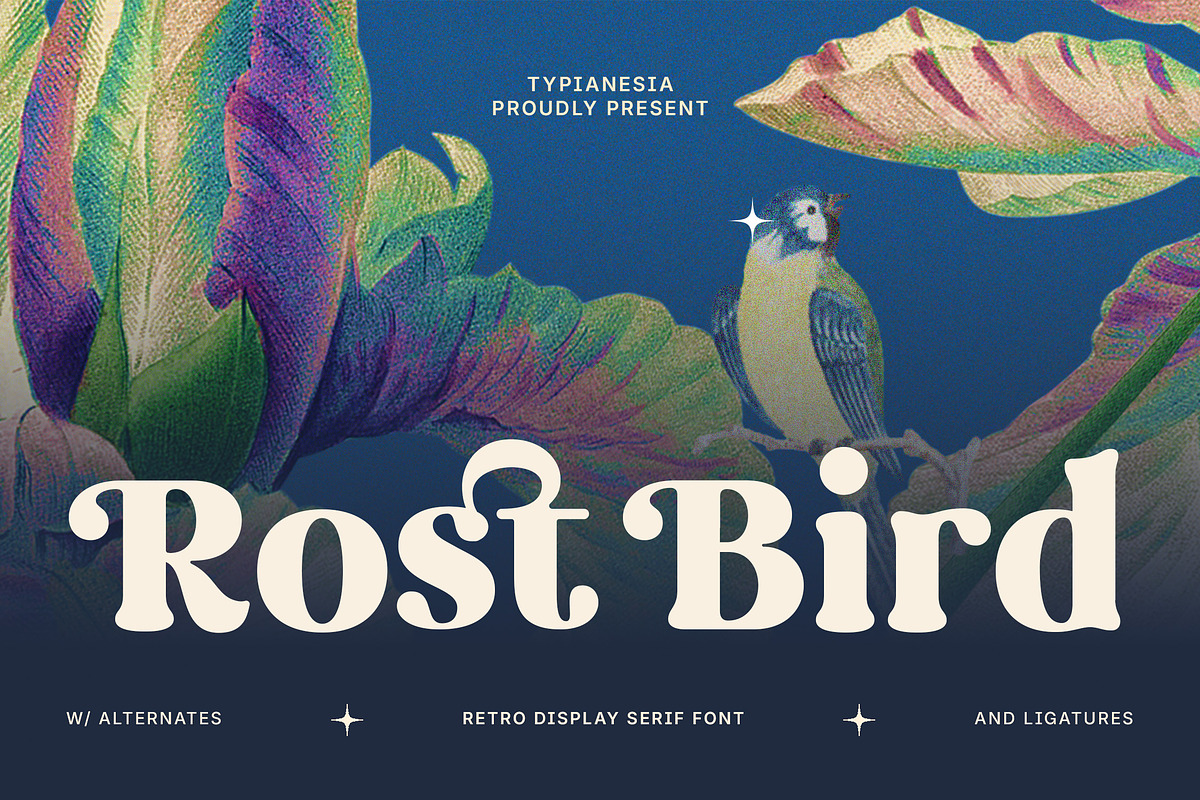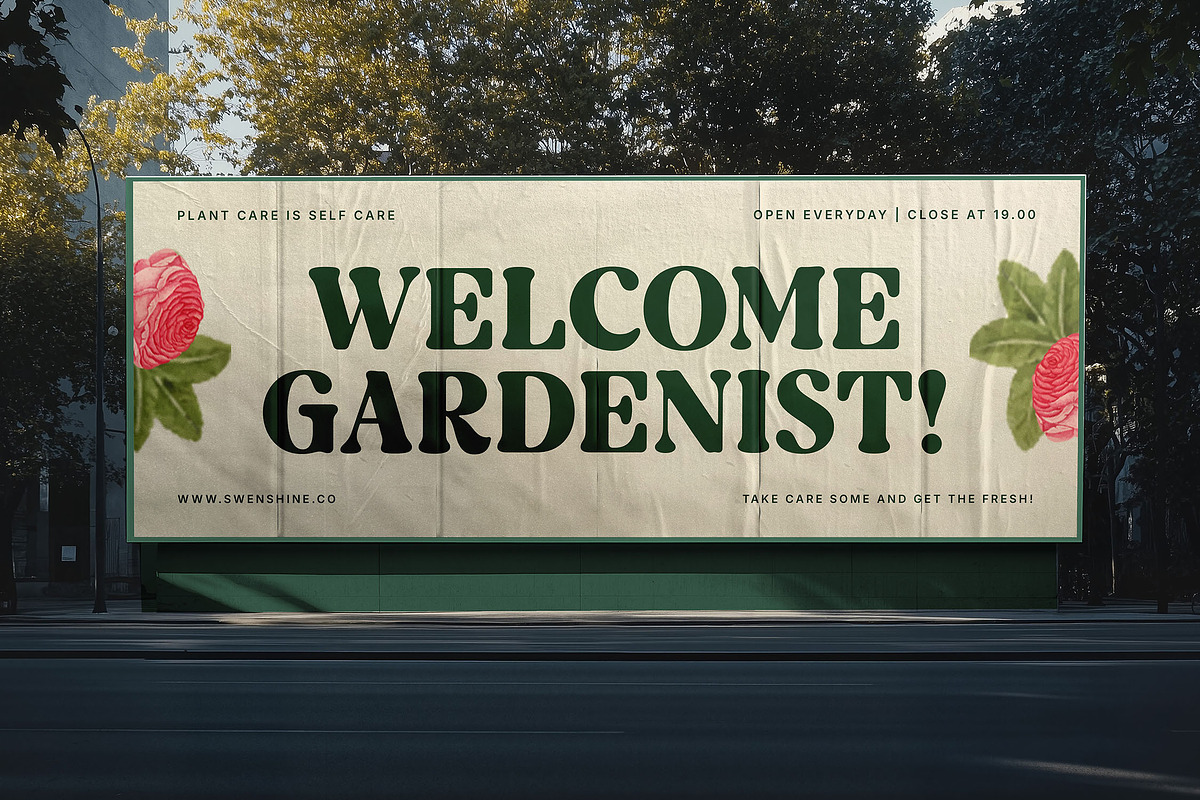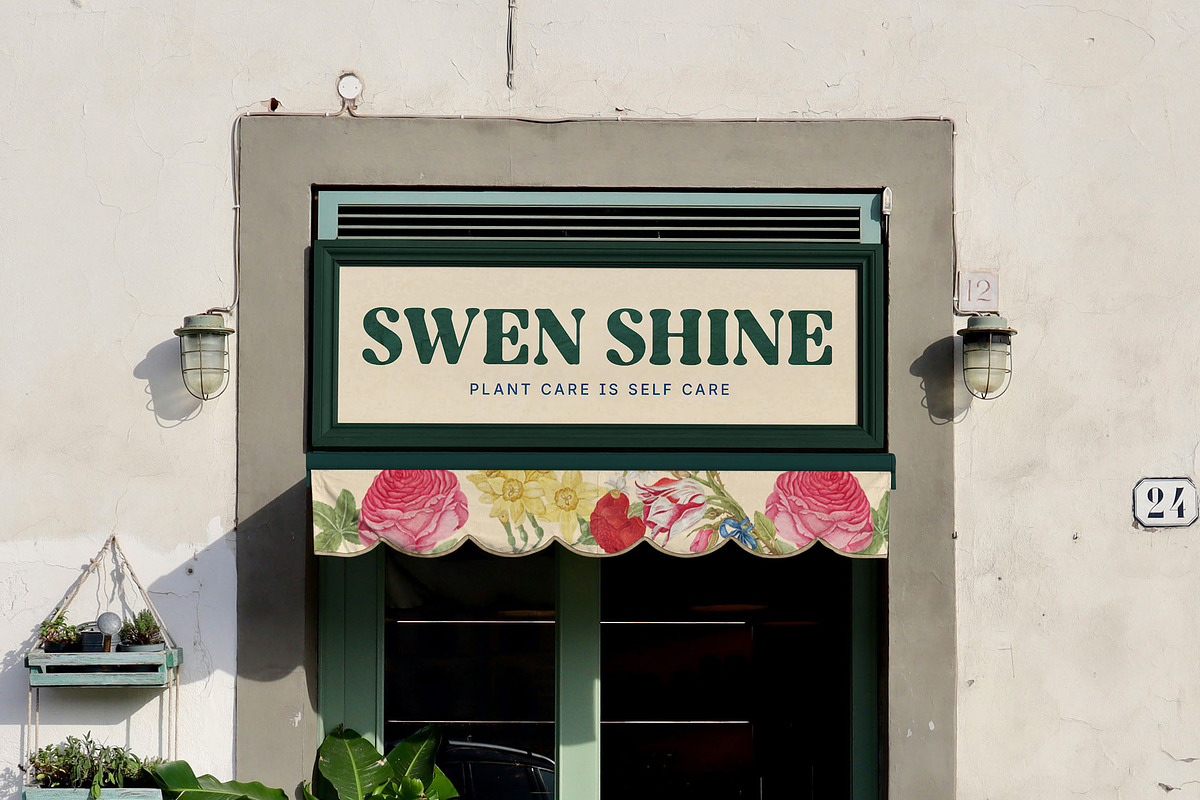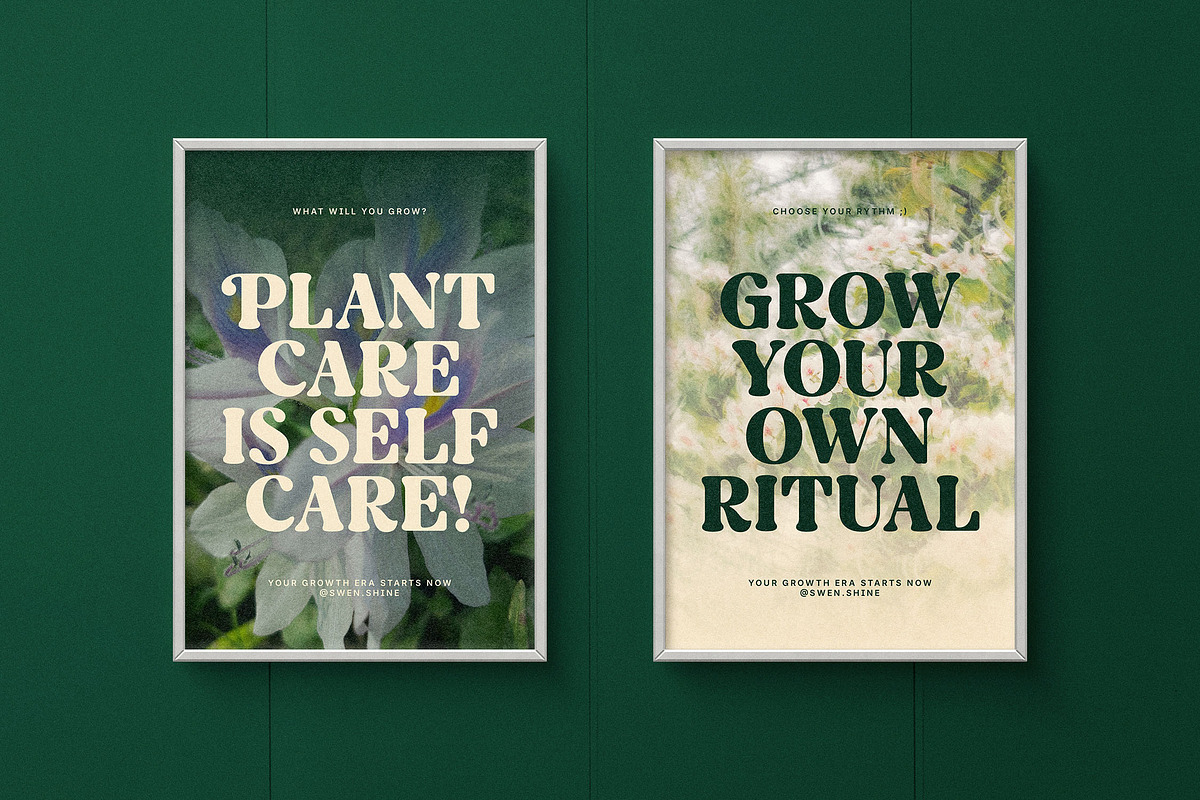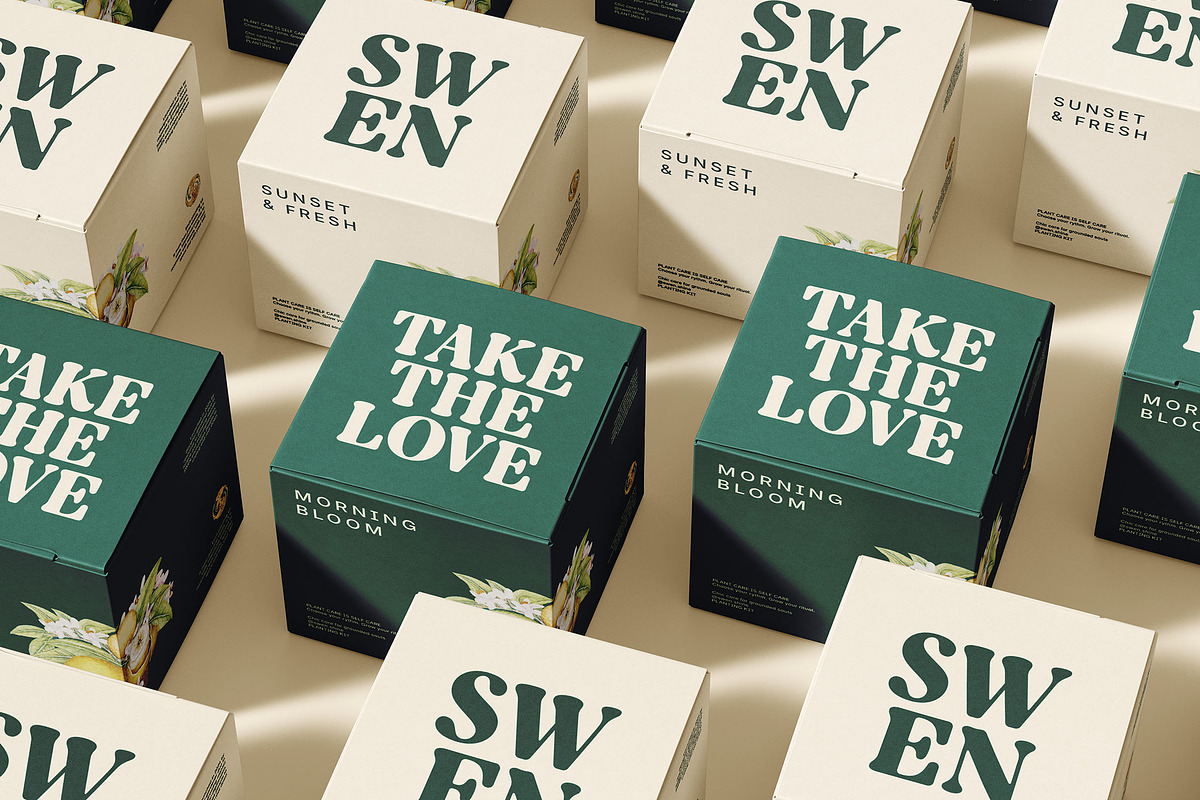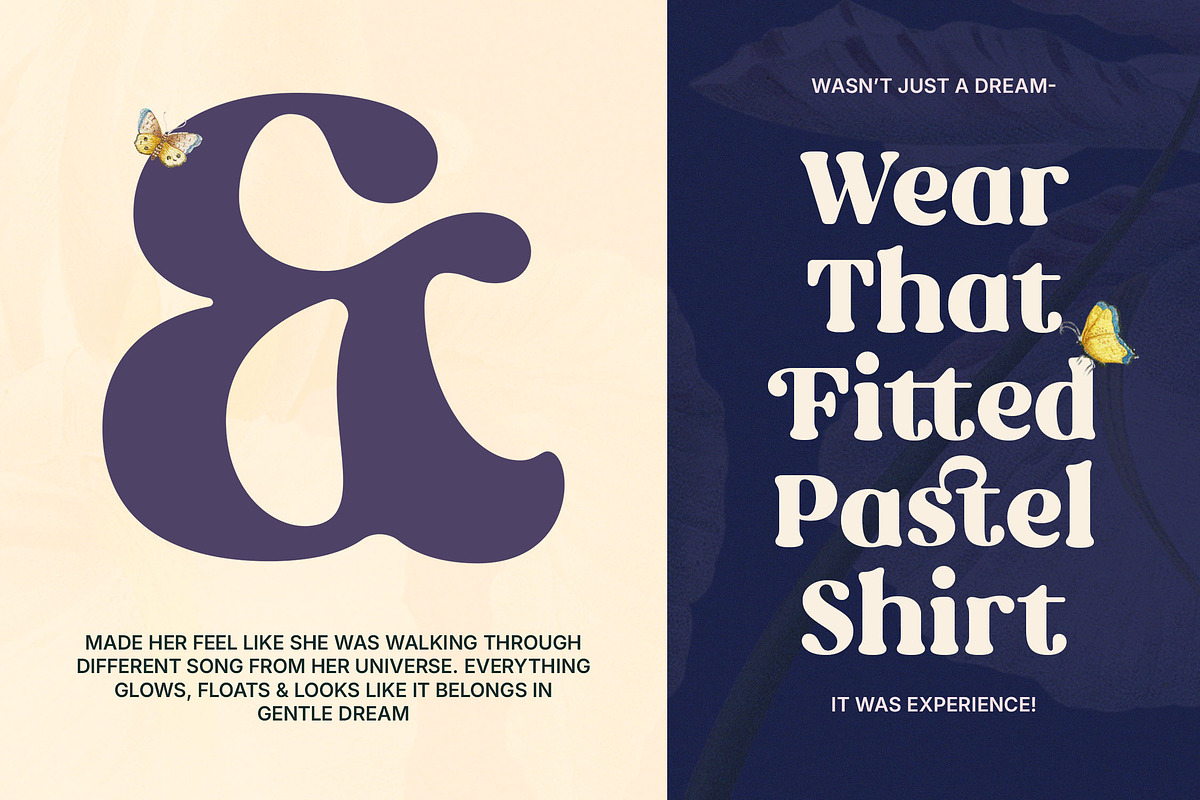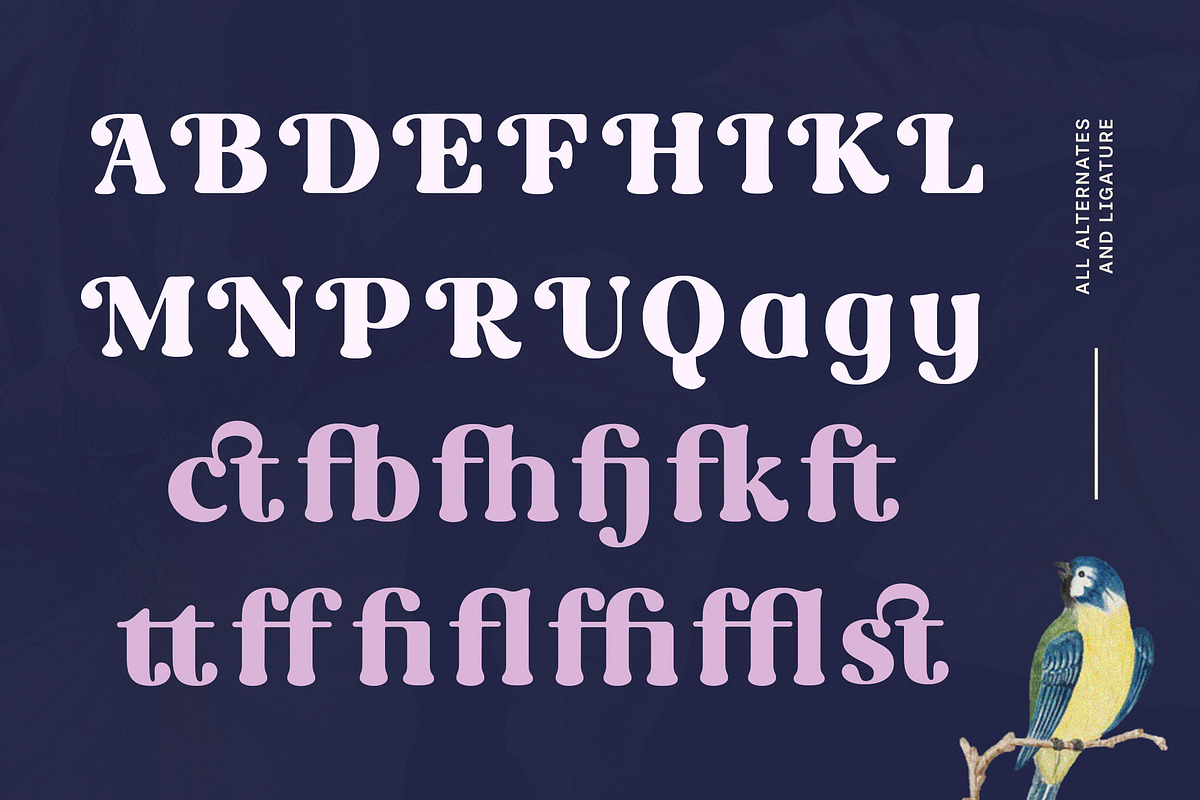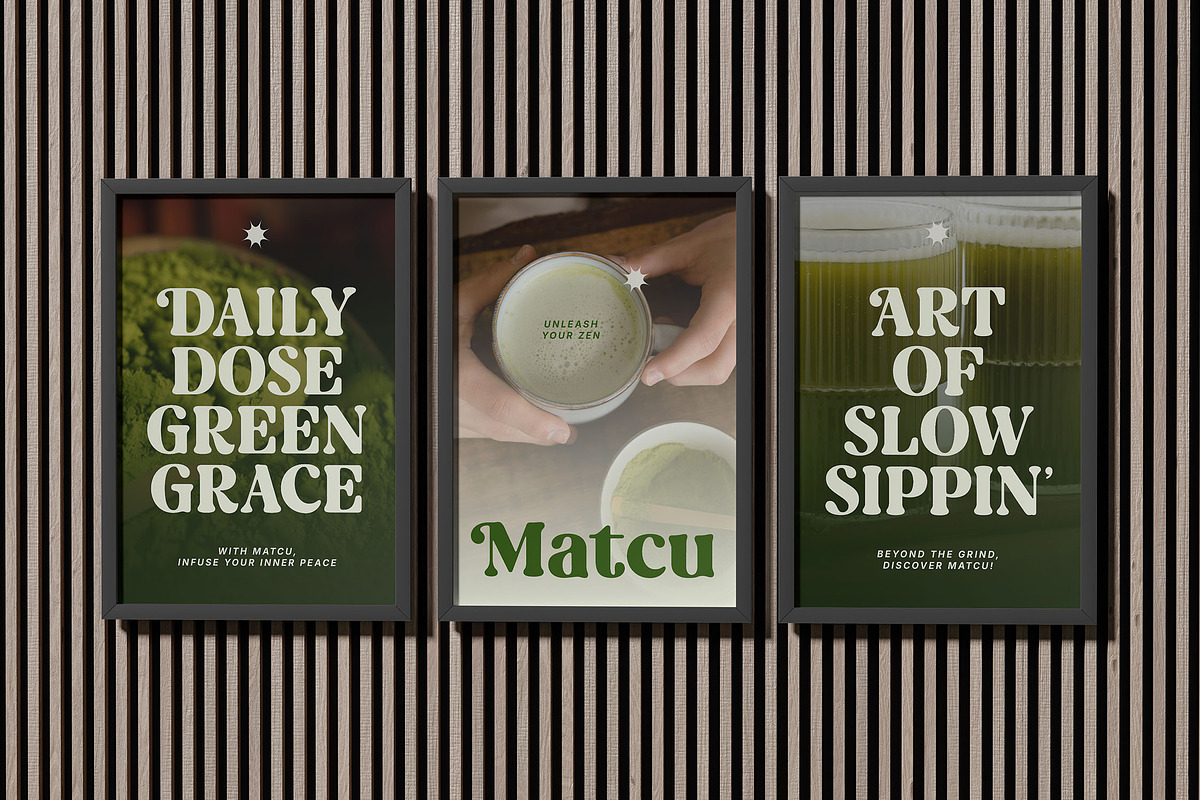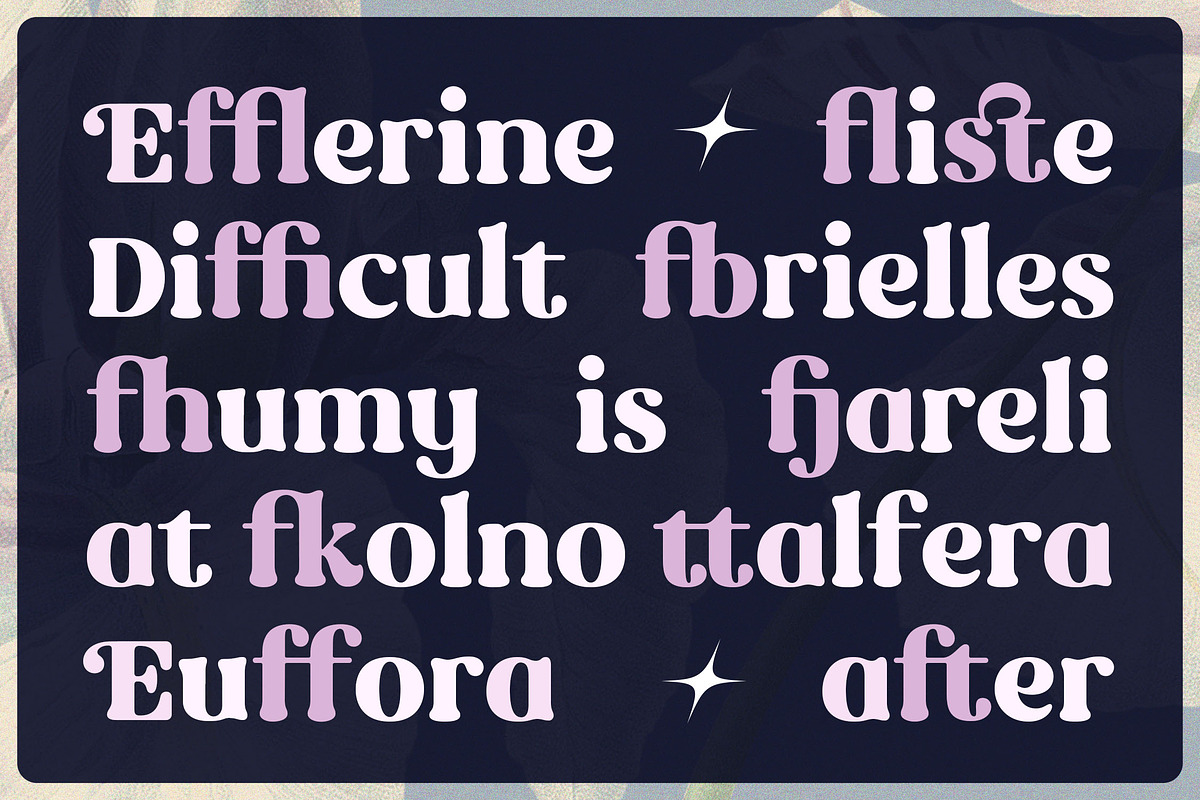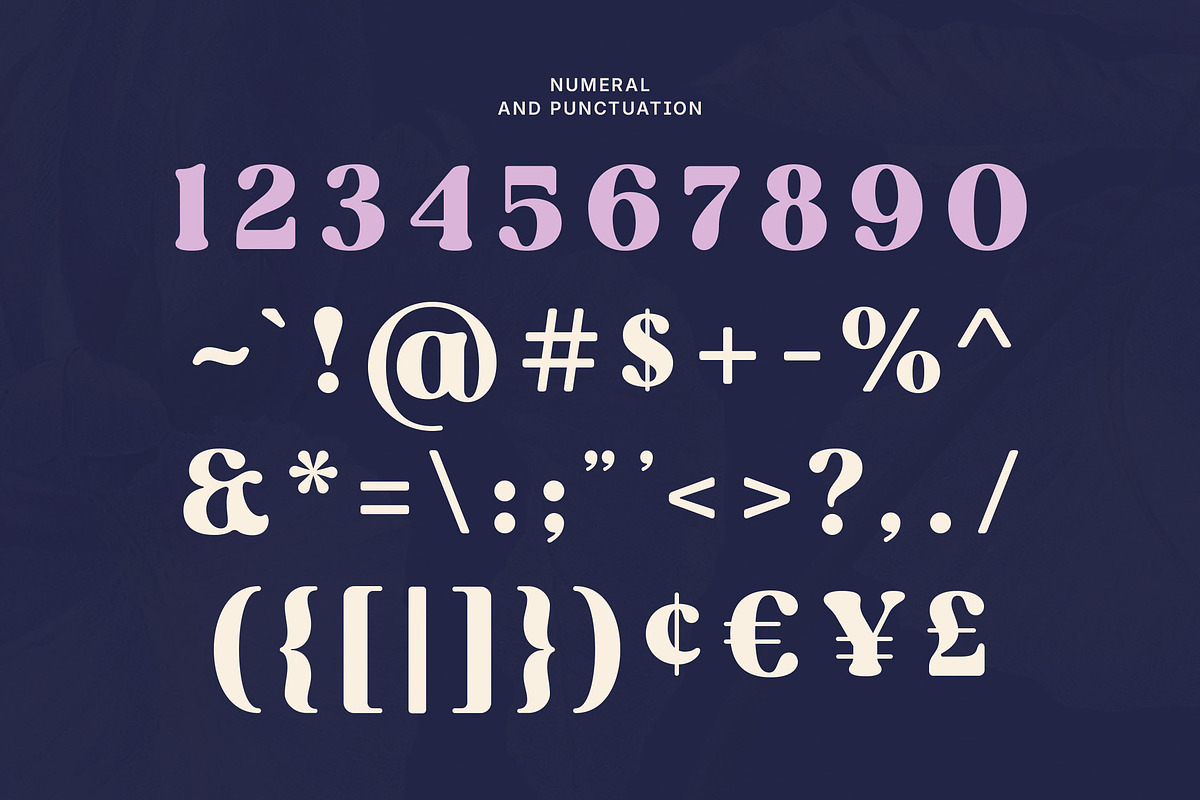
Rost Bird - Bold Swashes Retro Serif
Rost Bird - Bold Swashes Retro Serif font - Summer Vintage Display Font
Rost Bird is a captivating retro display serif font that exudes a strong sense of vintage elegance. With its unique curves and distinctive details, this font is designed to grab attention and add a personal touch to any design project, such as logos, branding, product packaging, posters, merchandise, advertising, headlines, magazines and any project that offers for brands looking to blend classic aesthetics with a modern feel, complete with a set of alternate characters and ligatures, creating a flexible, unique, warm, bold, and sophisticated impression.